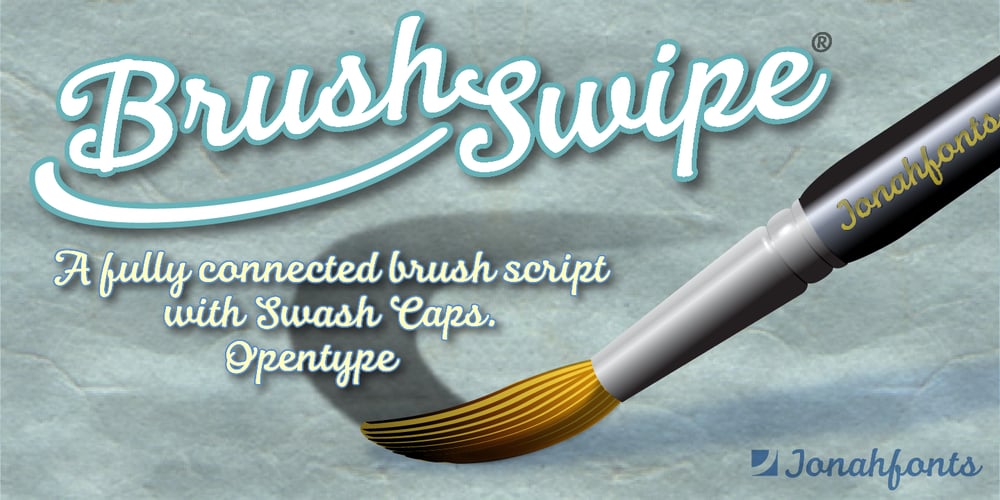
Brush Swipe Font Family was designed by John Nahmias and published by Jonahfonts. Brush Swipe contains 1 styles and family package options. A freehand connected brush script with swash-caps and a variety ligatures. All lower case glyphs carefully designed to connect to each other creating a pleasant and legible script.Suitable for captions, packaging, cards, posters, ads, book jackets, manuals, and menus.